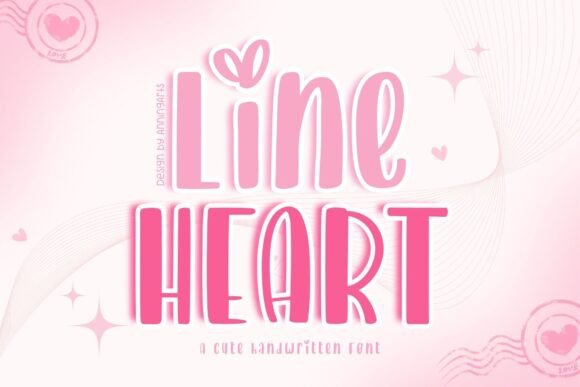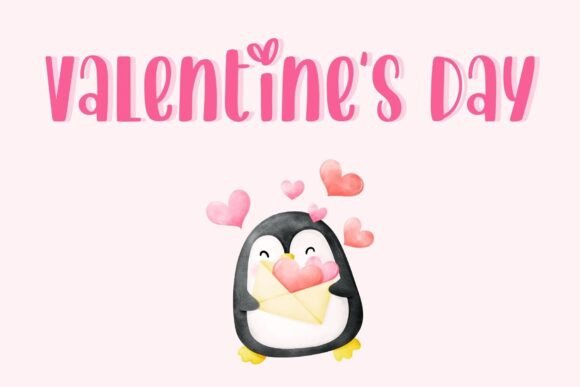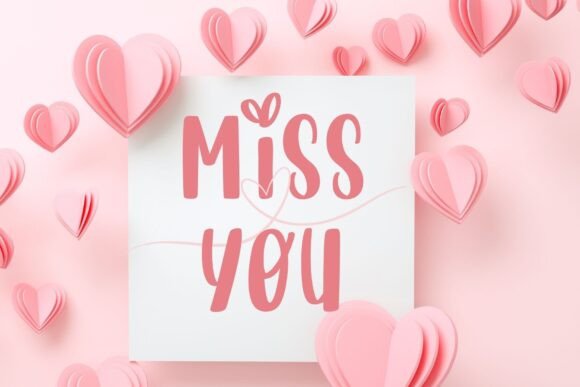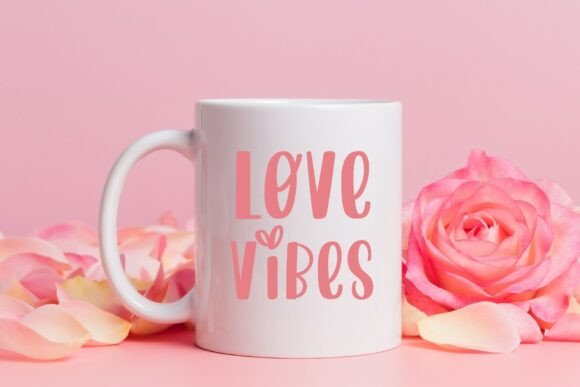
Lineheart Font: A Sweet & Playful Handwritten Font for Cricut & DIY
About the Lineheart Font
Make a bold statement with Lineheart Font, a powerful and memorable font. Lineheart is a charming and playful handwritten font that adds a touch of sweetness to any project. Featuring rounded, bold letterforms with whimsical heart motifs, this font is perfect for love-themed designs, invitations, greeting cards, and more. Its friendly and approachable style brings joy and warmth to every word, making it ideal for creative and romantic projects.
Lineheart excels in projects requiring a friendly and approachable tone, such as branding for children’s products, wedding stationery, or social media graphics. It’s also well-suited for short headlines, quotes, and logos where its playful charm can shine. However, its whimsical nature makes it less suitable for body text, lengthy paragraphs, or applications demanding high readability, like UI elements or technical documents.
Pairing Lineheart effectively requires considering its rounded, bold forms. A clean sans-serif like Open Sans or Lato provides a strong contrast and enhances readability when used for supporting text. For a more sophisticated feel, a classic serif font like Garamond or Playfair Display adds elegance without overwhelming Lineheart’s playful personality.
The overall personality of Lineheart is cheerful and lighthearted, conveying warmth and approachability. Its bold strokes give it a confident presence, preventing it from appearing overly delicate or childish. This balance makes it versatile for both celebratory and everyday applications.